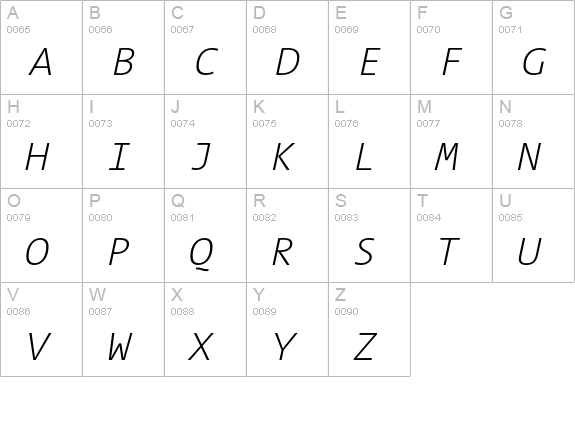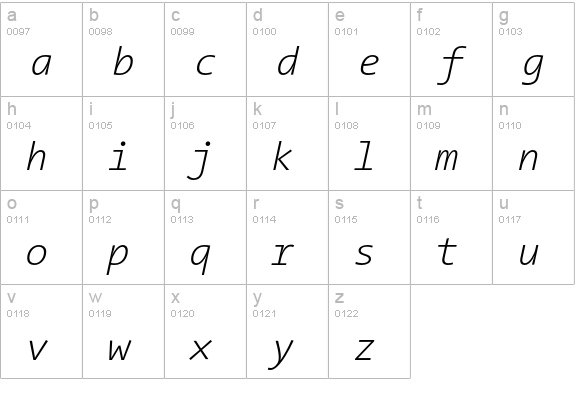
TheSansMono Extra Light Italic Font Details
TheSansMono Extra Light Italic is a refined, elegant, italic variant in the TheSansMono typeface family \xE2\x80\x94 well suited to elegant body text, refined sub-headings, and luxury branding.
TheSansMono Extra Light Italic font is a delicate and elegant typeface that exudes a sense of sophistication and modernity. Its slender and graceful curves create a harmonious balance, allowing it to effortlessly blend into any design project. With its extra light weight and italic style, TheSansMono Extra Light Italic font adds a touch of refinement and finesse to any text. Whether used in print or digital media, this font captures attention with its subtle yet distinctive appearance. One of the best features of TheSansMono Extra Light Italic font is its versatility. It can be used for a wide range of applications, from branding and headline designs to body text and captions. Its legibility and readability make it a perfect choice for long-form content, ensuring that every word is effortlessly conveyed to the reader. And the best part? TheSansMono Extra Light Italic font is available for free download at FontsMarket.com. This means that designers, enthusiasts, and anyone who appreciates exceptional typography can easily access this font and incorporate it into their projects. Whether you're a professional designer or a hobbyist, this font is a valuable addition to your font library. So, if you're looking for a font that combines elegance, versatility, and the convenience of being freely available, TheSansMono Extra Light Italic font is the perfect choice. Download it today from FontsMarket.com and elevate your designs to new heights of sophistication and style.